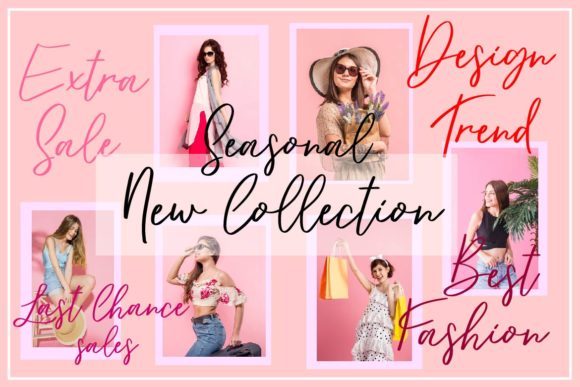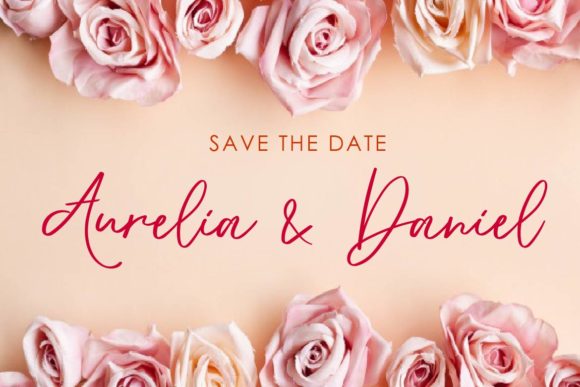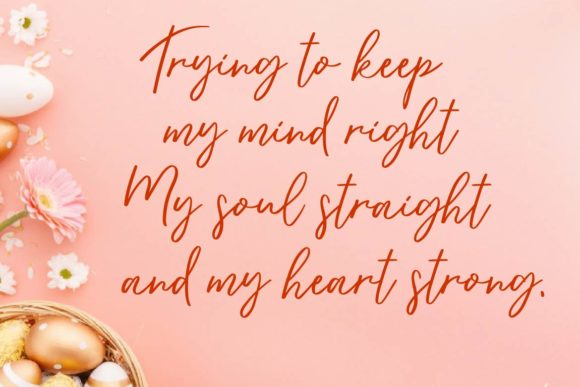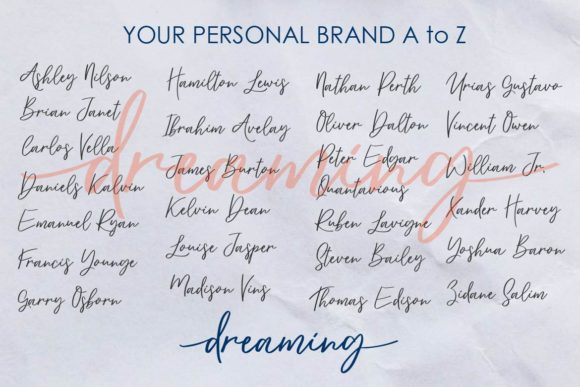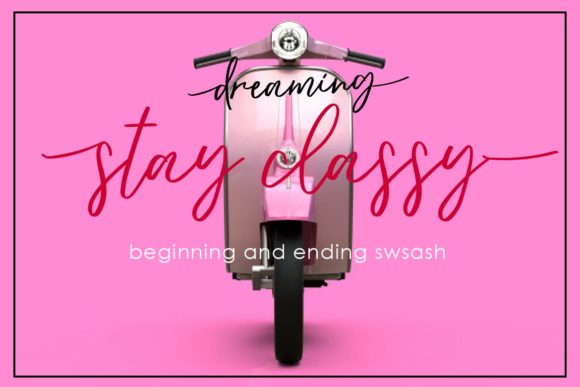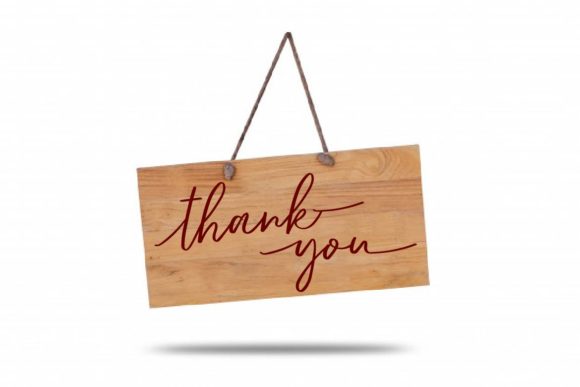
Dreaming Font: A Whimsical Handwritten Script for Creative Designs
Are you a designer or crafter looking for a unique and eye-catching font to elevate your creative projects? Look no further than the Dreaming Font, a casual handwritten script that’s full of personality and curves. This beautiful font is perfect for adding a touch of whimsy and elegance to a wide range of designs, from logos and watermarks to wedding decor and album covers.
The Story Behind Dreaming Font
Dreaming Font was designed with the intention of capturing the natural, effortless look of handwritten script. Using quick strokes and fluid movements, the font’s creator aimed to craft a style that felt both personal and approachable. The result is a font that’s full of character and charm, with a distinctly casual feel that’s perfect for designs that need a human touch.
Key Features of Dreaming Font
So what sets Dreaming Font apart from other handwritten scripts? Here are a few key features that make it stand out:
- Natural, handwritten style: Dreaming Font was designed to mimic the look of real handwriting, with all the imperfections and quirks that come with it.
- Full of personality and curves: This font is anything but boring! Its unique curves and flourishes make it perfect for designs that need a bit of flair.
- Casual and approachable: Dreaming Font has a friendly, laid-back vibe that’s perfect for designs that need to feel relaxed and informal.
- Highly versatile: Whether you’re designing a logo, a wedding invitation, or a magazine cover, Dreaming Font is a great choice.
Perfect for a Wide Range of Designs
Dreaming Font is a highly versatile font that’s suitable for a wide range of creative projects. Here are some ideas to get you started:
- Logos: Add a personal touch to your brand’s logo with Dreaming Font’s unique, handwritten style.
- Watermarks on photography: Protect your photos with a beautiful, elegant watermark that complements your images perfectly.
- Signatures: Use Dreaming Font to add a touch of personality to your email signatures, documents, and more.
- Quotes and posters: Make your quotes and posters stand out with a font that’s both stylish and easy to read.
- Wedding designs: From invitations to wedding favors, Dreaming Font is a beautiful choice for any wedding-related design.
- Album covers and music designs: Add a touch of whimsy to your album covers, CD designs, and other music-related projects.
- Business cards and stationery: Stand out from the crowd with a business card or stationery set that features Dreaming Font.
- Clothing and apparel: Use Dreaming Font to create eye-catching designs for t-shirts, hoodies, and other clothing items.
- Magazines and publications: Add a touch of elegance to your magazine or publication with Dreaming Font’s beautiful, handwritten style.
Why Choose Dreaming Font?
So why should you choose Dreaming Font for your next design project? Here are just a few reasons:
- Unique and eye-catching: Dreaming Font is a one-of-a-kind font that’s sure to grab attention.
- Easy to read: Despite its whimsical style, Dreaming Font is highly legible and easy to read.
- Highly versatile: This font can be used for a wide range of designs, from logos and watermarks to wedding decor and album covers.
- Perfect for creative projects: If you’re working on a creative project that needs a bit of personality, Dreaming Font is a great choice.
In conclusion, Dreaming Font is a beautiful, whimsical handwritten script that’s perfect for designers and crafters looking to add a touch of personality to their creative projects. With its natural, effortless style and highly versatile design, this font is sure to become a favorite in your design toolkit.
| Font Name | Dreaming Font |
| Author | aminmario |